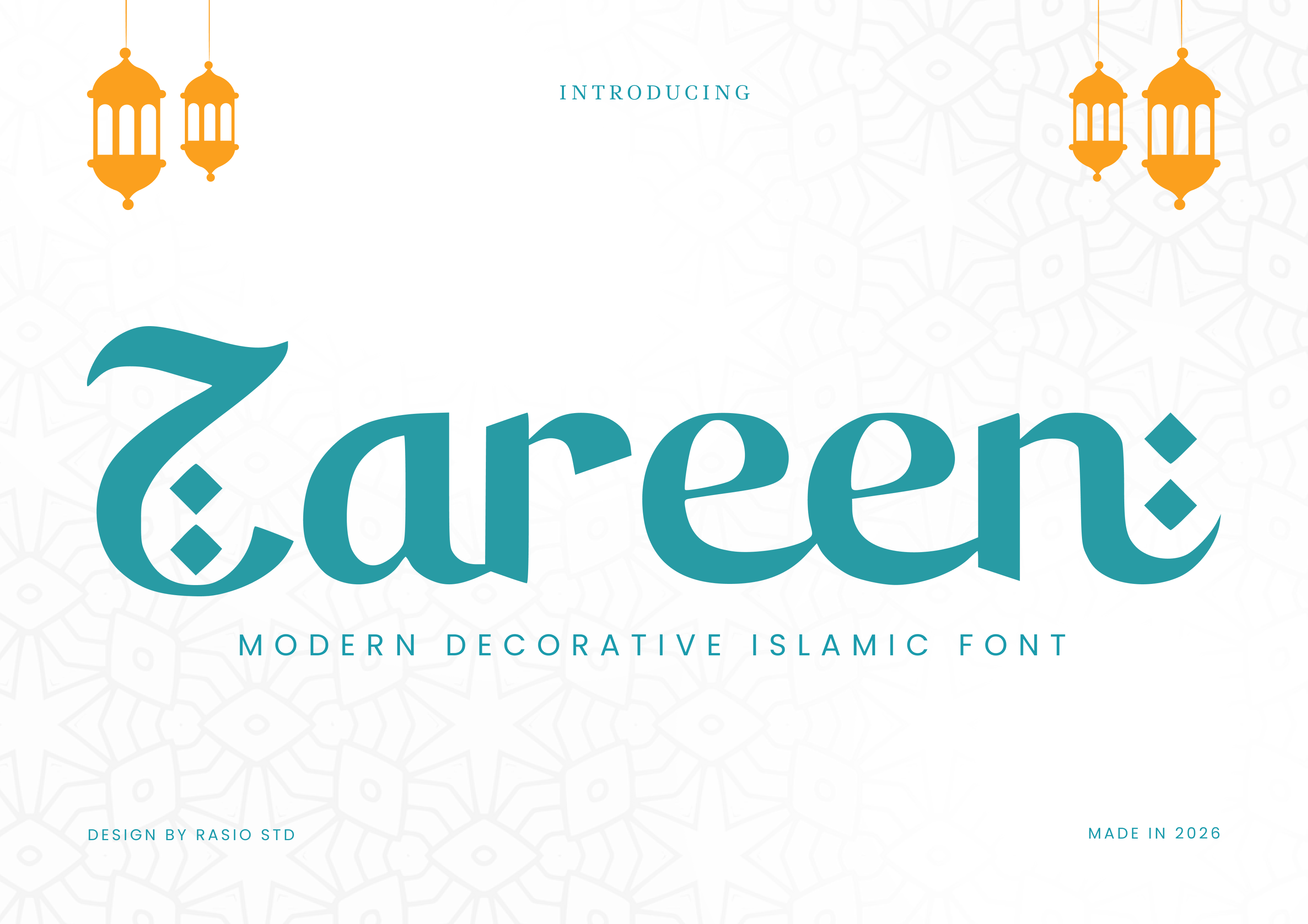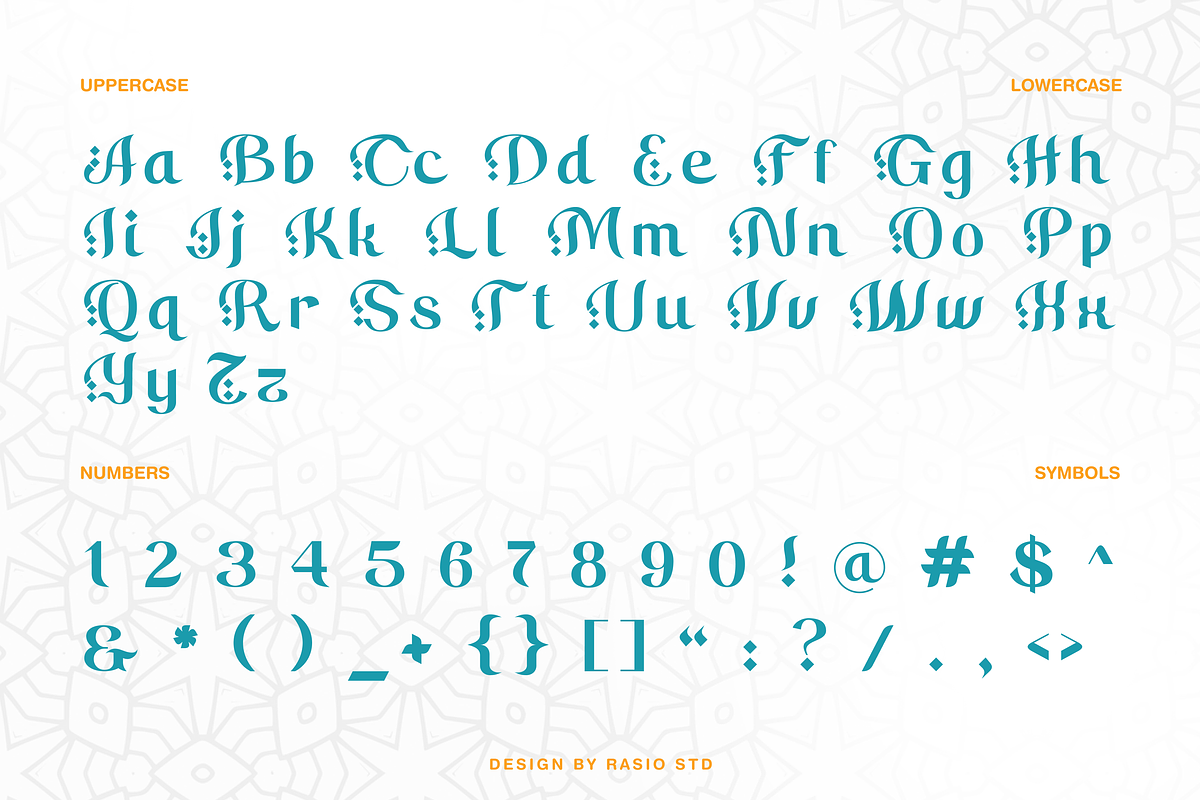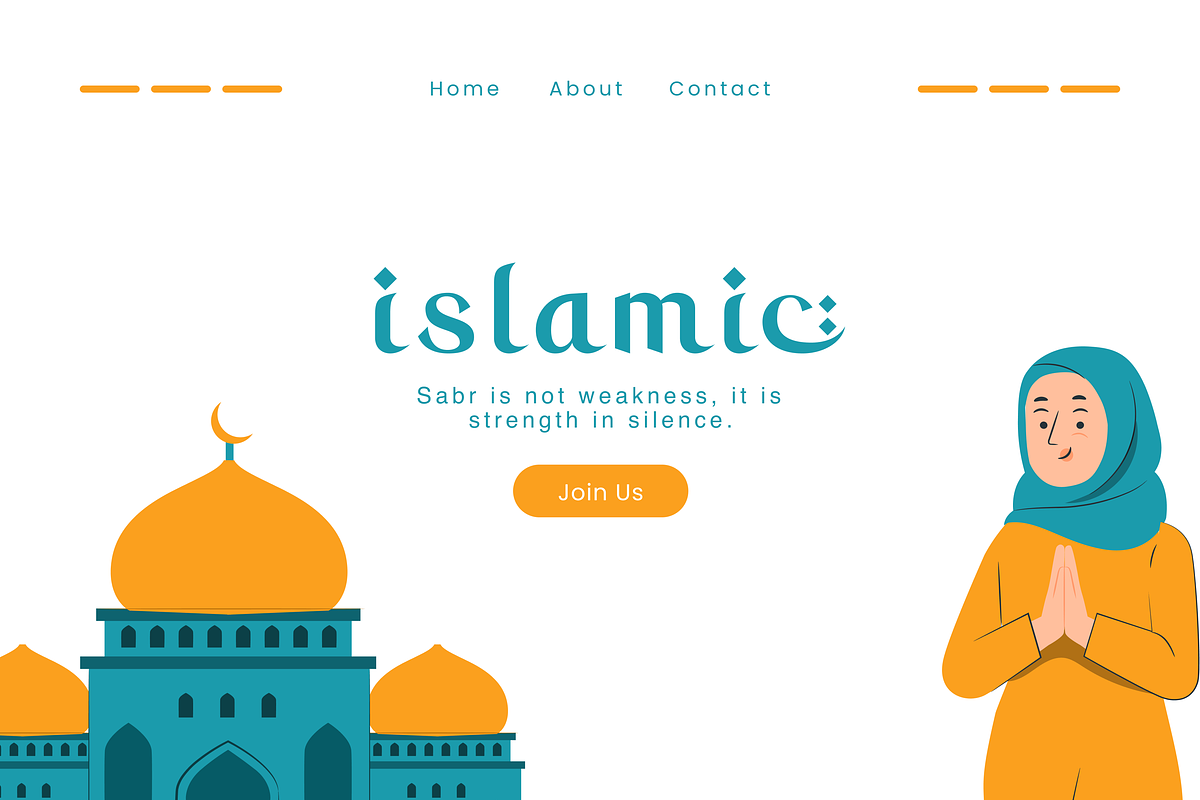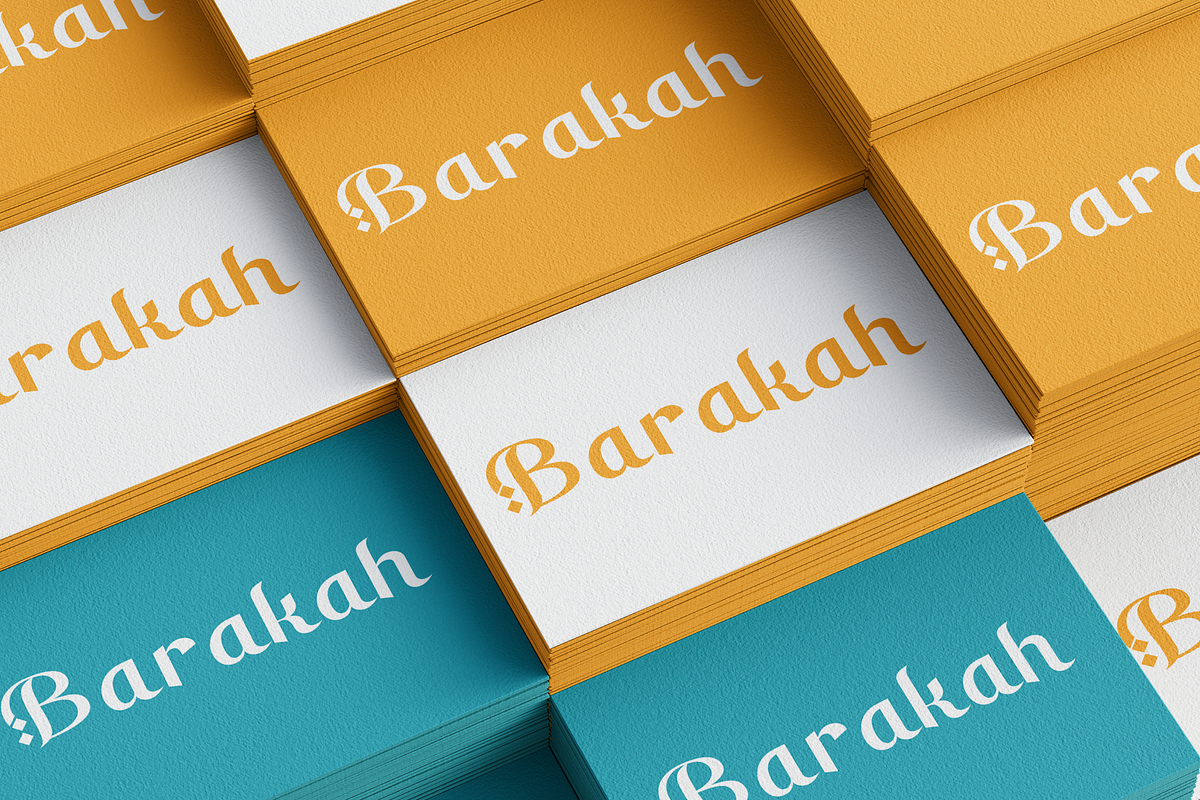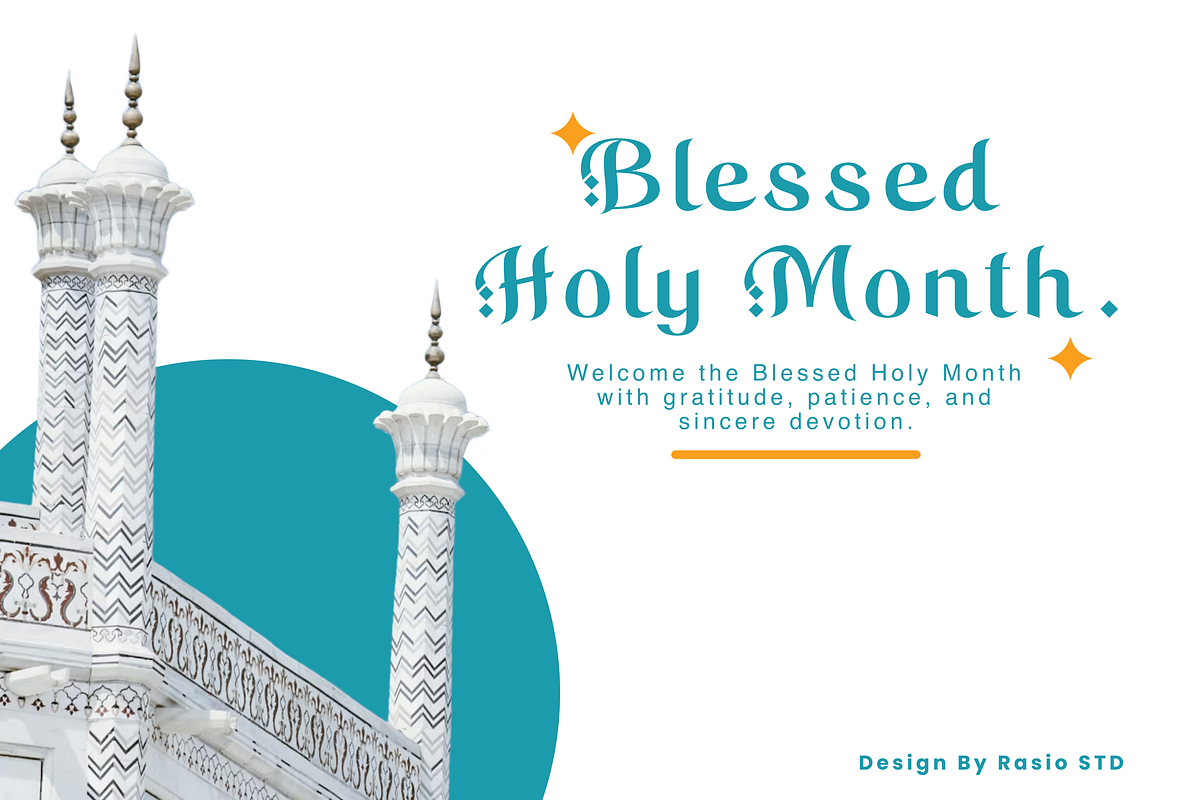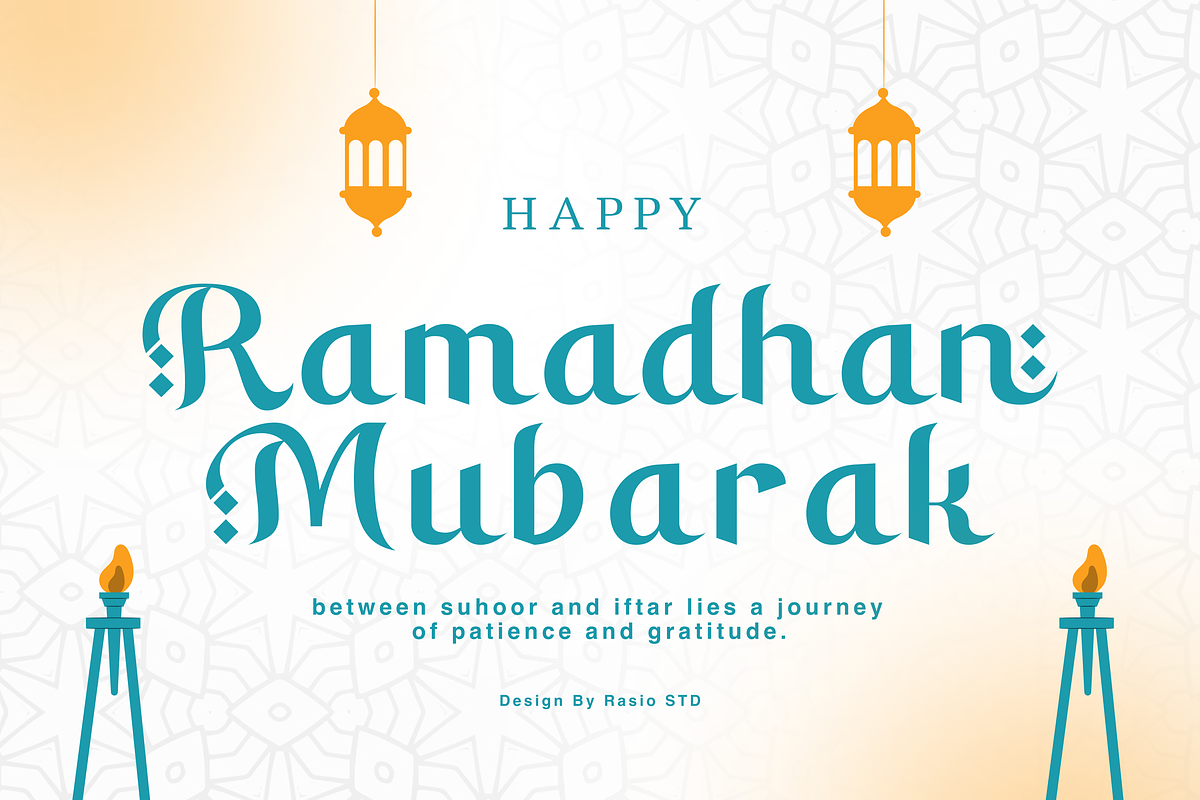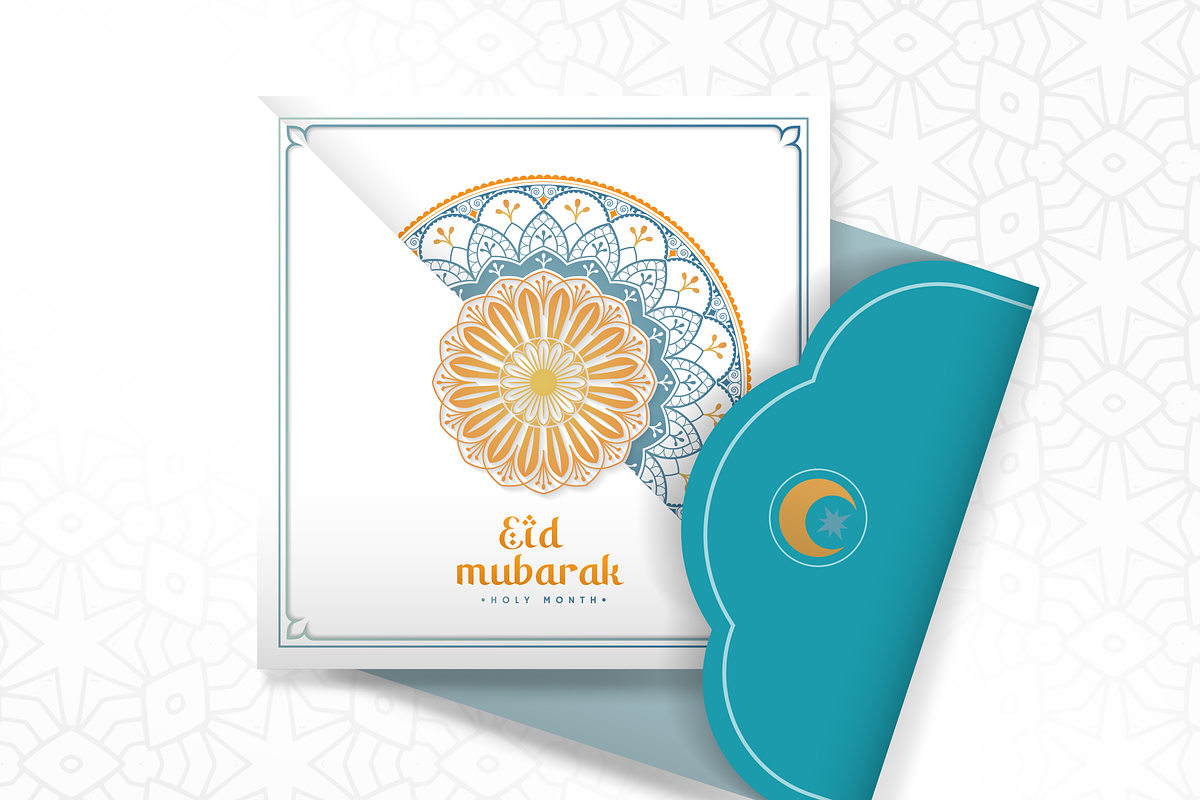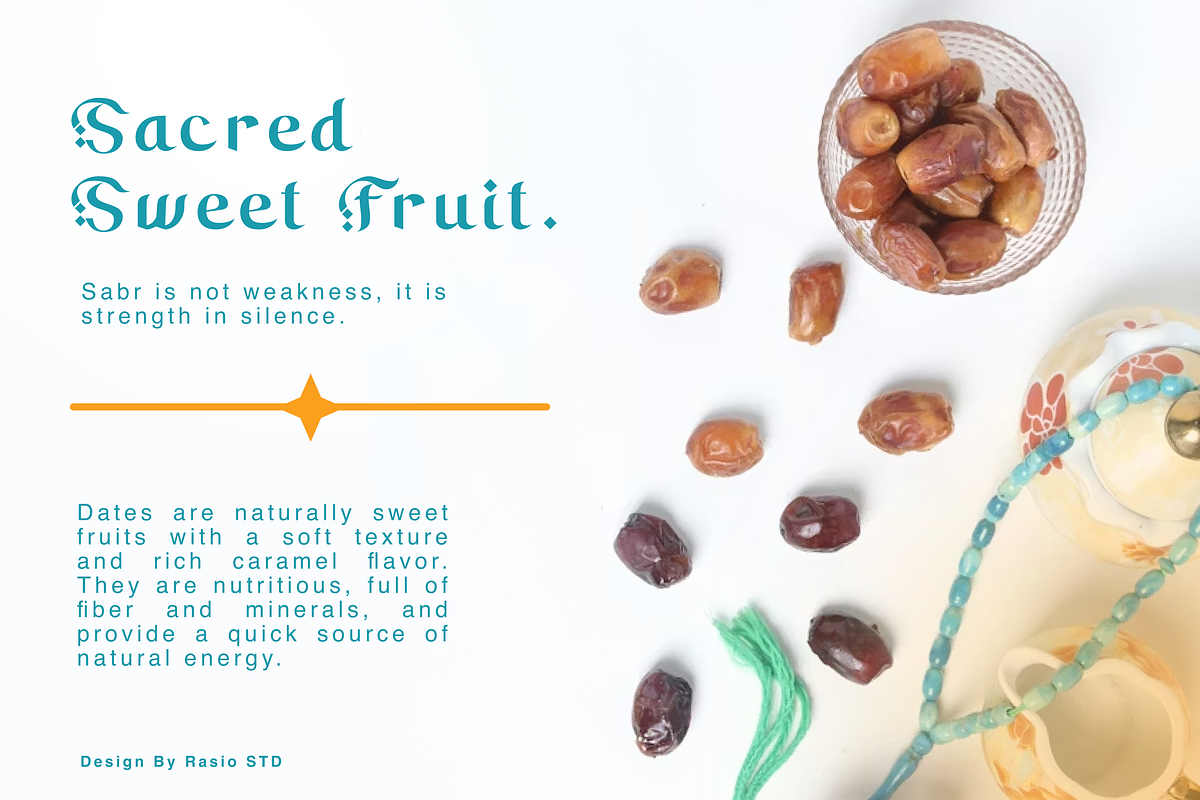
Zareen Decorative Islamic Font
Zareen is a modern decorative Islamic display font inspired by traditional Arabic ornamentation and refined contemporary typography. Featuring distinctive diamond-shaped diacritic accents, elegant curves, and balanced serif structures, Zareen blends cultural heritage with modern clarity. Designed to bring warmth and spirituality into your layouts, this typeface captures the essence of Ramadan, sacred themes, and Islamic visual identity while remaining highly readable.
Zareen is perfectly suited for Ramadan campaigns, Eid greeting cards, Islamic event posters, halal product packaging, mosque branding, religious publications, cultural exhibitions, spiritual quotes, social media Ramadan content, and Islamic-themed visual identities. Its ornamental details and modern proportions make it ideal for both festive and premium branding projects.
- Islamic-inspired letterforms with refined decorative detailing
- Signature diamond-shaped accents integrated into character anatomy
- Elegant curves and sculpted serifs for a graceful, spiritual presence
- Balanced stroke contrast with smooth transitions for visual harmony
- Carefully spaced proportions optimized for impactful headlines and decorative compositions
- Islamic brand identity systems and mosque visual branding
- Ramadan and Eid campaign posters, greeting cards, and event materials
- Halal product packaging and Middle Eastern lifestyle branding
- Religious publications and culturally inspired editorial layouts
- Social media templates and promotional graphics with Islamic decorative aesthetics